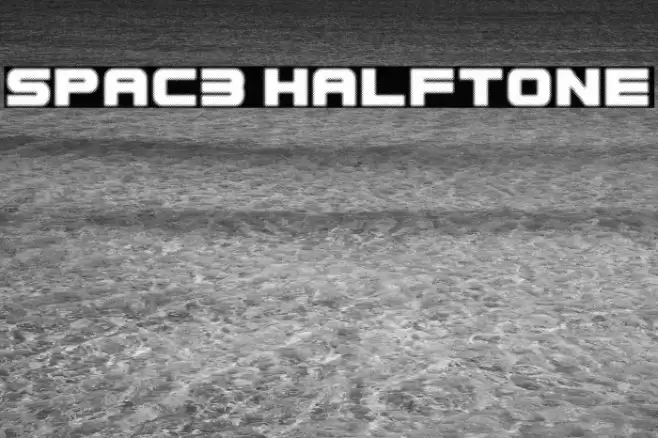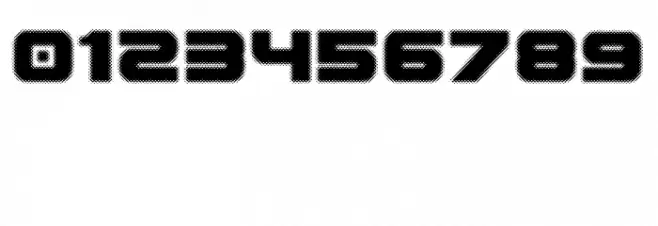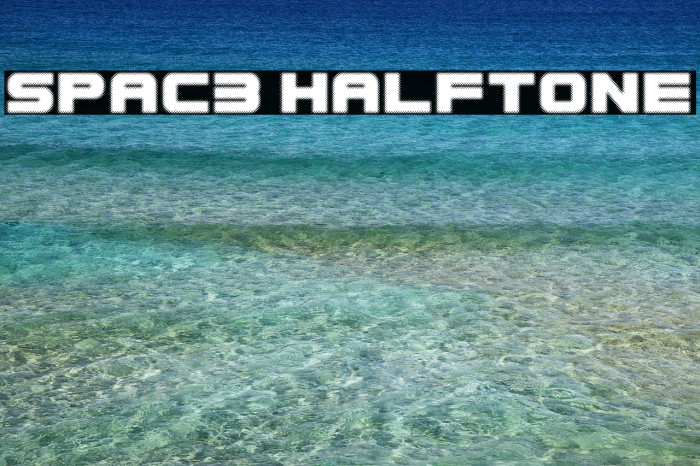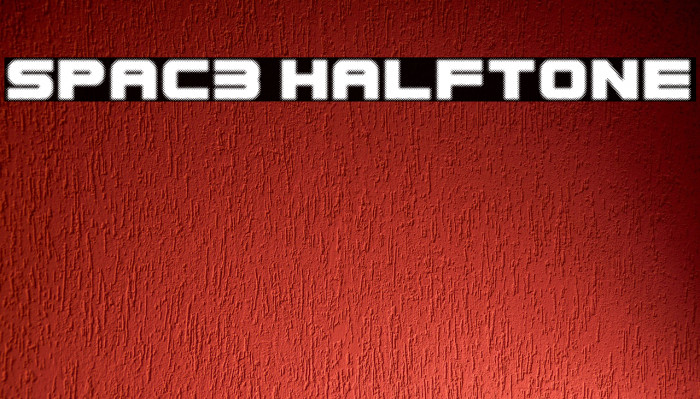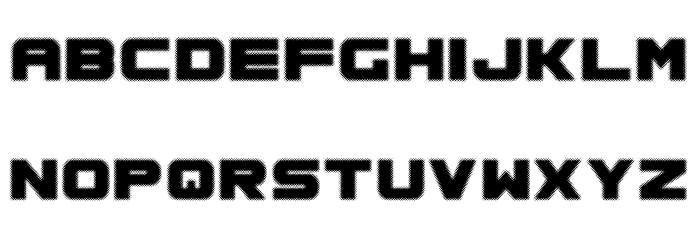
Spac3 halftone Font
Spac3 halftone Description
This font features a bold, futuristic design with a distinct halftone pattern that gives it a textured, digital appearance. The characters are uniformly wide with a blocky, geometric structure, making them highly legible and impactful. The halftone effect adds a sense of depth and movement, reminiscent of digital screens or sci-fi aesthetics. The uppercase letters are consistent in height and width, while the numerals maintain the same bold style, ensuring uniformity across all characters. This font is ideal for projects that require a modern, tech-inspired look.
A bold, futuristic font with a halftone pattern and geometric design from Uncategorized fonts.
- Proposed Projects: Ideal for tech-related branding, sci-fi themed posters, digital media, and video game graphics.